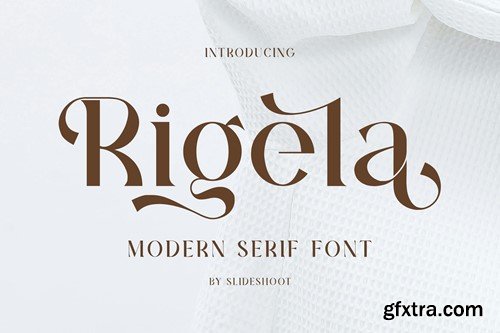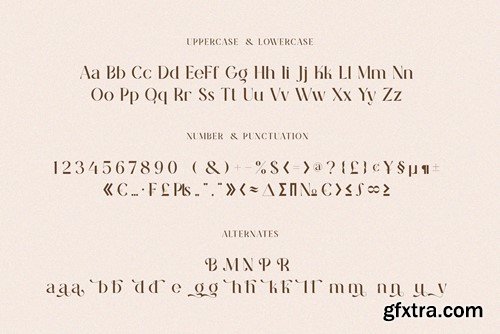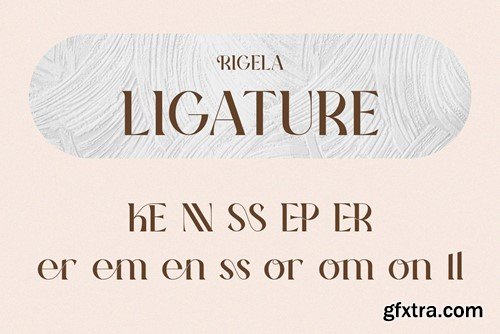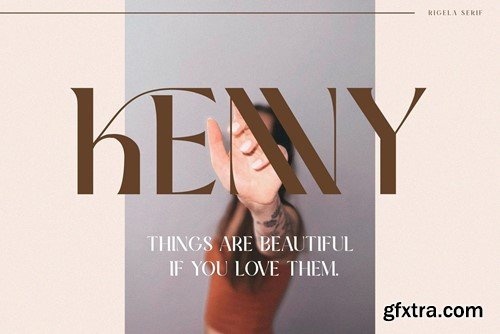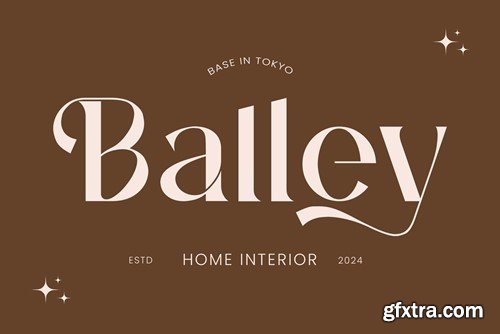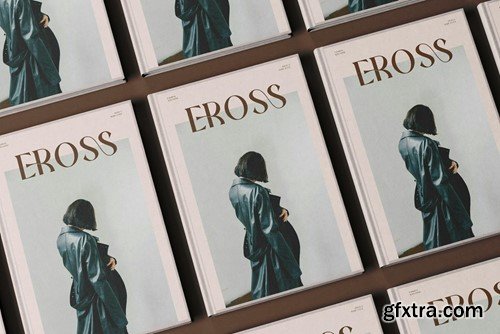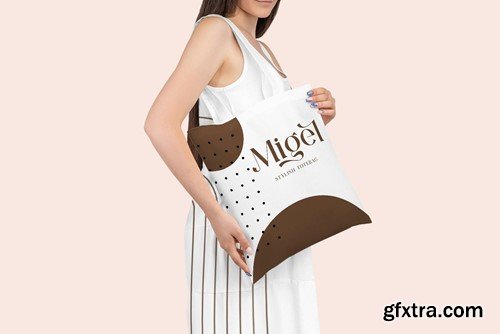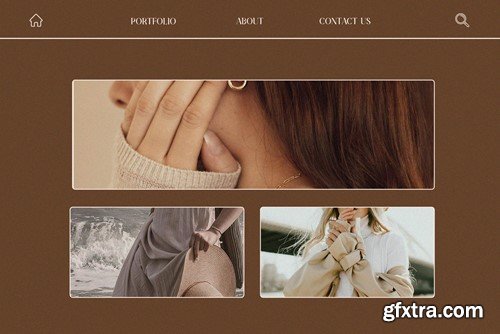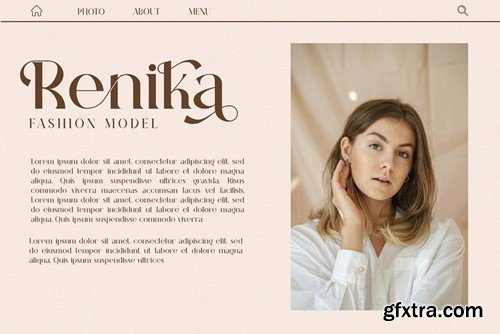
锐格拉 - 现代衬线字体 TPWMFWA
Rigela - Modern Serif Font TPWMFWA
Rigela - Modern Serif Font
Rigela Serif is a balanced, smooth, elegant and stylish serif font. He has a beautiful character. It fits perfectly with invitation card designs, company logos, movie titles, movie names, business cards, book titles, brand names and various other designs. Rigela Serif is a subtle serif font that exudes sophistication and elegance. Its stylish alternations and ligatures make this font the perfect partner for any project.
FEATURE :
• Ligature
• Uppercase and lowercase
• Numbering and Punctuation